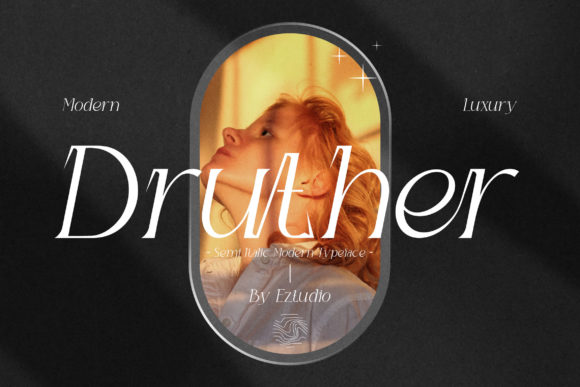
Introducing Druther Font: Elevate Your Designs with Elegance and Luxury
In the world of typography, fonts play a crucial role in conveying the tone and personality of a design. For those seeking a distinct, elegant, and luxurious feel, the Druther Font is an exceptional choice. This stunning serif font is perfect for designs that demand a personalized touch, such as wedding invitations, thank you cards, weddings, greeting cards, logos, and more.
What Makes Druther Font Stand Out?
Druther Font boasts a unique blend of classic sophistication and modern flair, making it an ideal selection for designers and crafters looking to add a touch of luxury to their work. Its elegant serif lines and refined aesthetic ensure that any design it is used in will exude a sense of high-end quality and sophistication.
Key Features of Druther Font
- Distinct Elegance: Druther Font features distinctive serif details that set it apart from more common fonts. Its elegant appearance makes it perfect for designs where making a statement is key.
- Luxurious Feel: The font’s luxurious feel is unmatched, making it suitable for high-end branding, wedding designs, and any project that requires a touch of class.
- Versatility: Druther Font is incredibly versatile, suitable for a wide range of design projects including but not limited to wedding invitations, thank you cards, greeting cards, logos, and more.
- Personalized Style: For projects that require a personalized touch, Druther Font delivers. Its unique style ensures that your designs stand out from the crowd.
Whether you’re a professional designer or a crafty individual, Druther Font offers the tools you need to create stunning designs. Its user-friendly nature means that you can easily incorporate it into your projects, adding a level of sophistication that will leave a lasting impression.
Wedding and Event Designs
For wedding planners, event coordinators, and DIY brides and grooms, Druther Font is a dream come true. It can be used to create beautiful wedding invitations, save-the-date cards, and other event materials that set the tone for a luxurious and memorable occasion.
Branding and Logos
Businesses looking for a font that conveys elegance and luxury will find Druther Font to be an excellent choice. It’s perfect for creating high-end logos, business cards, and marketing materials that need to make a sophisticated statement.
Tips for Using Druther Font
- Pair with Simplicity: To truly make Druther Font shine, pair it with simple backgrounds or design elements. This allows the font’s elegance to be the focal point.
- Experiment with Sizes: Don’t be afraid to experiment with different sizes to see how Druther Font looks in various applications, from large headlines to smaller body text.
- Consider Color: Choose colors that complement the luxurious feel of Druther Font. Classic black and white are always a safe bet, but soft pastels or metallic colors can also enhance its beauty.
Druther Font is more than just a font; it’s a design statement. Its distinct elegance, luxurious feel, and versatility make it an invaluable tool for designers and crafters looking to elevate their work. Whether you’re creating wedding invitations, logos, or any other design that requires a personalized and sophisticated touch, Druther Font is sure to exceed your expectations.
So why settle for ordinary when you can create something extraordinary with Druther Font? Dive into the world of luxury typography and discover how this stunning serif font can transform your designs.